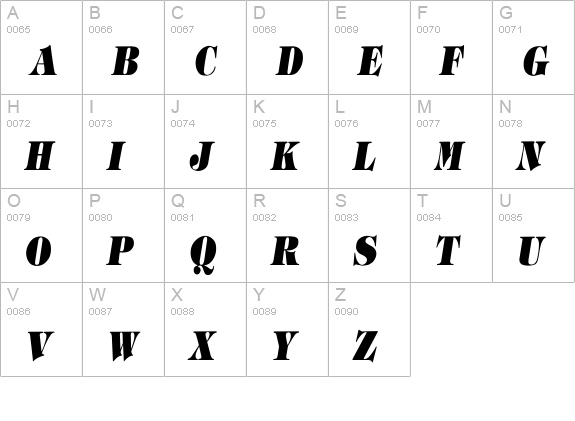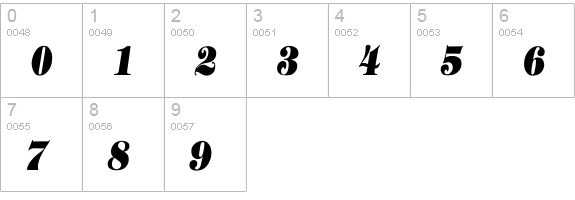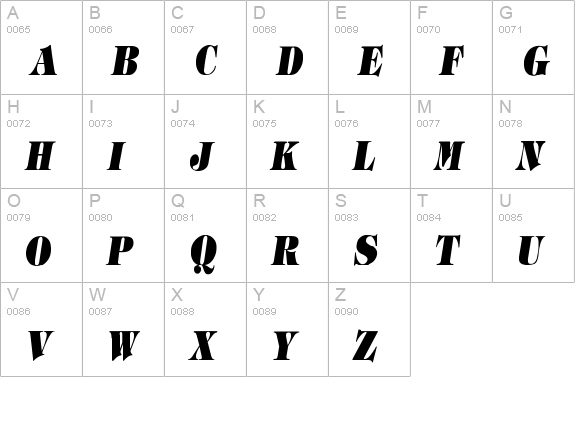
Timpani_Heavy-Italic Cn Font Details
Timpani_Heavy-Italic Cn is a distinctive, italic variant in the Timpani_Heavy typeface family \xE2\x80\x94 well suited to design and typography projects.
Timpani_Heavy-Italic Cn font is a magnificent display font that exudes power and elegance. With its bold and italicized design, this typeface adds a touch of sophistication to any project. The letters are meticulously crafted, featuring clean lines and intricate curves that give it a distinct and commanding presence. This font is perfect for headlines, logos, and any design that requires a strong and impactful typographic element. Its heavy weight and italic styling make it ideal for creating a sense of drama and intensity. Whether you're designing a poster for a concert or a book cover for a suspenseful novel, Timpani_Heavy-Italic Cn font will make a lasting impression. One of the best things about Timpani_Heavy-Italic Cn font is that it is available for free. You can easily download it at FontsMarket.com, where you'll find a vast collection of high-quality fonts. This means that you can add this stunning typeface to your design arsenal without breaking the bank. Don't miss out on the opportunity to enhance your designs with this exceptional font. Download Timpani_Heavy-Italic Cn font today and unleash its incredible potential. Whether you're a professional designer or a hobbyist, this font will elevate your work to new heights of creativity and impact.